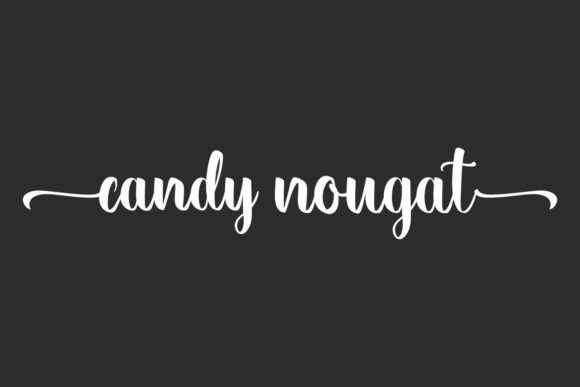
Discover the Sweet Taste of Design with Candy Nougat Font
Have you ever been brainstorming a new design project, and suddenly, a spark of creativity hits you? The colors, the shapes, the textures – everything falls into place, and you know exactly how to bring your vision to life. For me, that moment was when I stumbled upon the Candy Nougat Font. Its lovely, well-balanced script design immediately caught my attention, and I knew I had to learn more.
Candy Nougat Font is a versatile script font perfect for product packaging, branding projects, magazine covers, social media, weddings, or simply adding a touch of elegance to your words. With its PUA encoding, designers can easily access all the glyphs and swashes, making it a valuable asset for any creative project. Whether you’re a seasoned designer or just starting out, Candy Nougat Font is sure to be a sweet addition to your design toolkit.
- Unique Characteristics: Features a whimsical, hand-drawn style with a touch of modernity, perfect for creating eye-catching and playful designs.
Candy Nougat Font Review
I recently had the chance to work with the Candy Nougat Font, and I have to say, it’s a sweet treat for designers. ✨ The font’s playful and whimsical nature makes it perfect for creating eye-catching titles and headings. The varied line heights and letter spacing add a sense of movement and energy to your designs.
- ✨ Playful and whimsical design perfect for eye-catching titles and headings
- ✨ Suitable for a variety of design styles and applications
- ⚠️ May not be suitable for formal or professional designs
- ⚠️ Some users may find the font too playful or distracting
Overall, the Candy Nougat Font is a fun and versatile choice for designers looking to add some personality to their projects. While it may not be suitable for every design, it’s a great option for those looking to create eye-catching and engaging content.
The Candy Nougat font is a playful and whimsical font perfect for adding a touch of sweetness to your designs. To use it in your projects, follow these steps:
Use the Candy Nougat font for:
- Candy-themed designs
- Children’s party invitations
- Food packaging labels
- Social media graphics
For optimal results, pair the Candy Nougat font with bright and bold colors to create a playful and eye-catching design.
Alternatives to Candy Nougat Font
Great Vibes Font is a beautiful, modern script font perfect for adding a touch of elegance and sophistication to your designs. It’s ideal for use in headings, titles, and quotes. When to use: Create a luxurious feel for your brand or project.
Comparison: Great Vibes Font is more refined and elegant compared to Candy Nougat Font’s playful and whimsical feel.
Carolyna Pro Font is a versatile, modern script font suitable for various design projects, from elegant invitations to trendy logos. It’s perfect for use in headings, titles, and body text. When to use: Create a sophisticated and modern look for your brand or project.
Comparison: Carolyna Pro Font is more versatile and modern compared to Candy Nougat Font’s playful and retro feel.
Playfair Display Font is a luxurious, high-end serif font ideal for use in headings, titles, and luxury branding projects. It’s perfect for creating a sense of opulence and sophistication. When to use: Create a high-end, luxurious feel for your brand or project.
Comparison: Playfair Display Font is more formal and luxurious compared to Candy Nougat Font’s playful and casual feel.